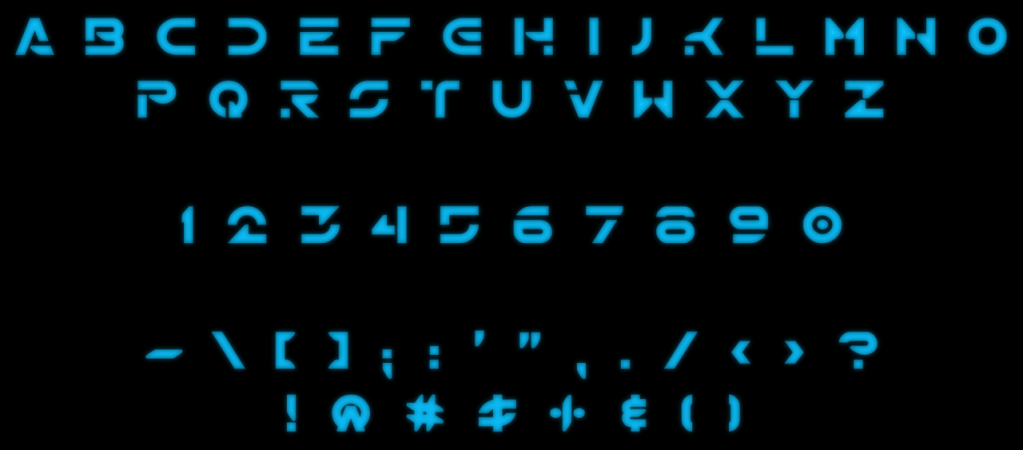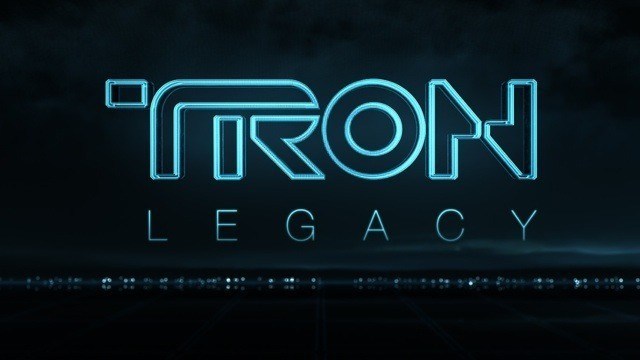
Tron Font
Here is Tron Font that is used in Commercial use. This is famous for its text generation function. This is a neon typeface that is similar to the futuristic font. His hobby designed and shared by means of using the vintage layout.